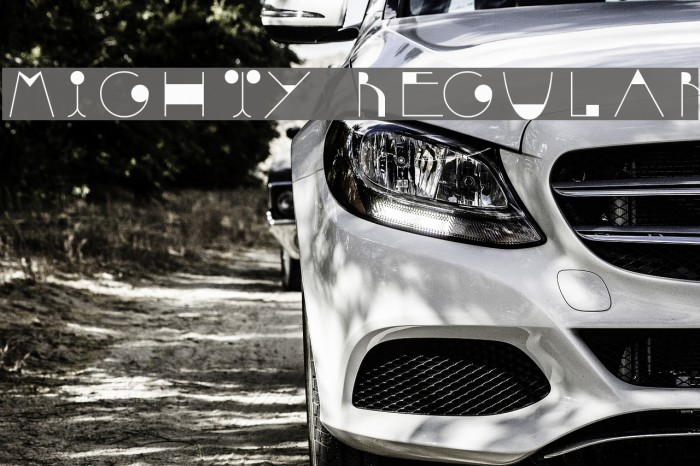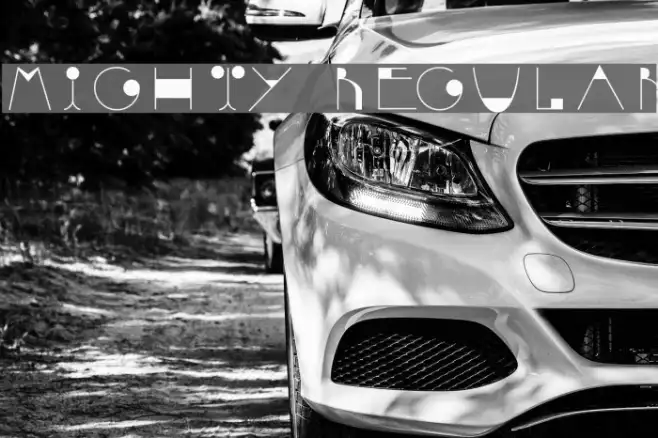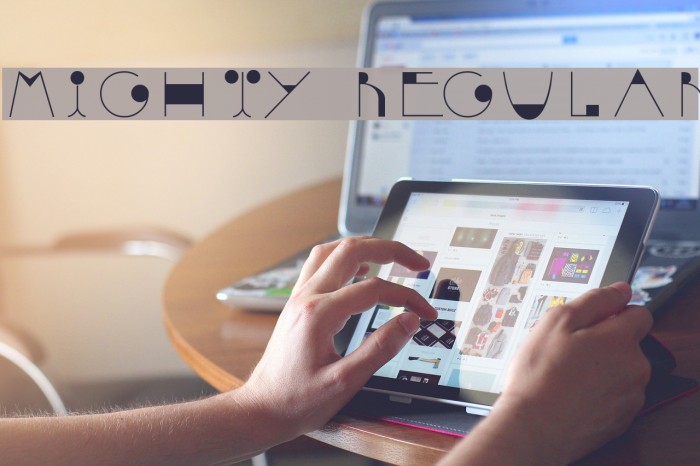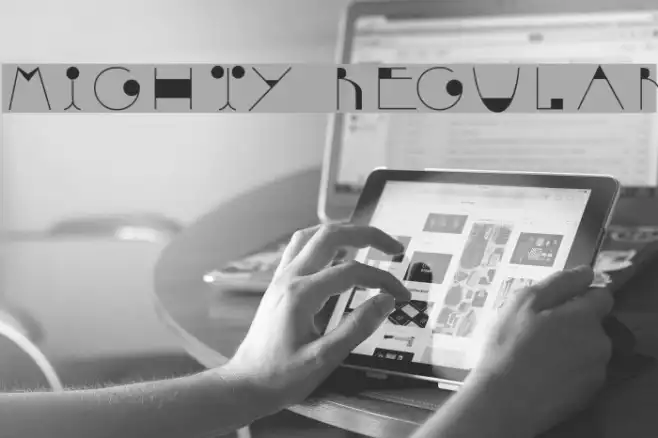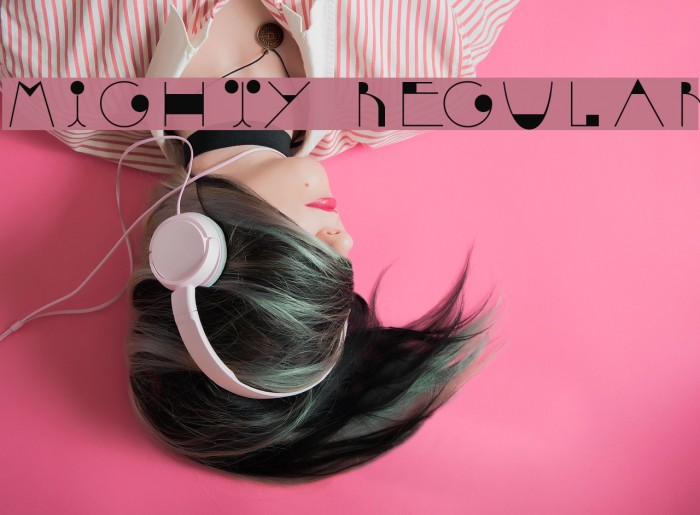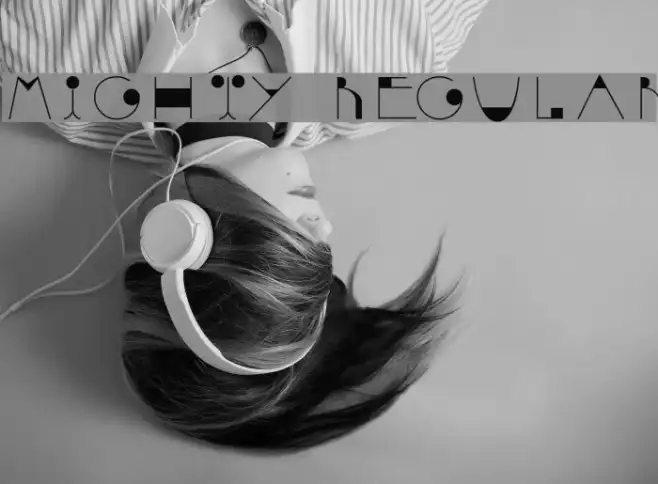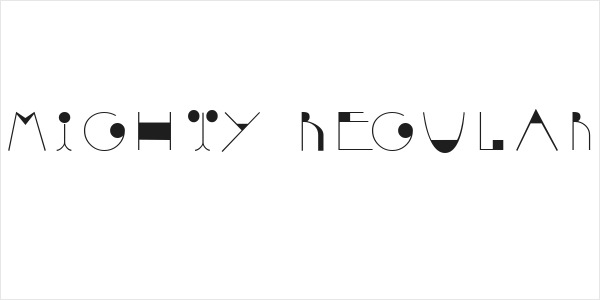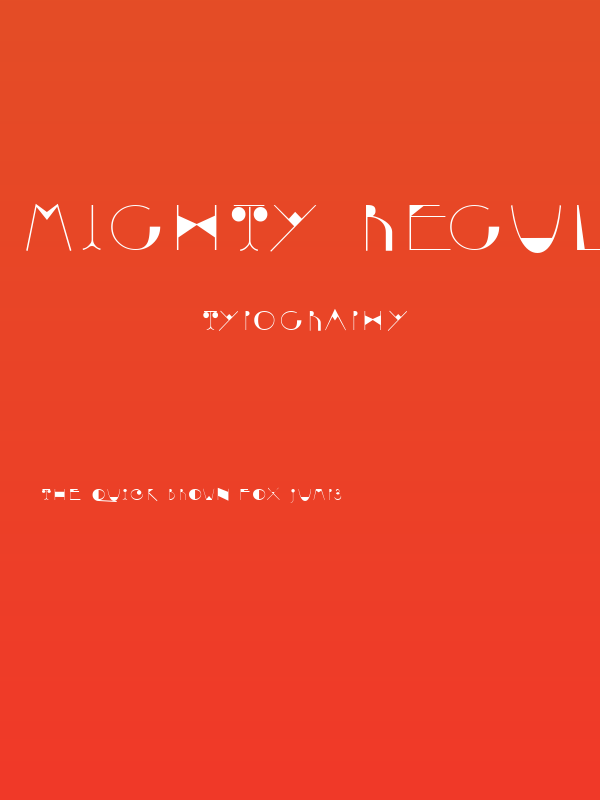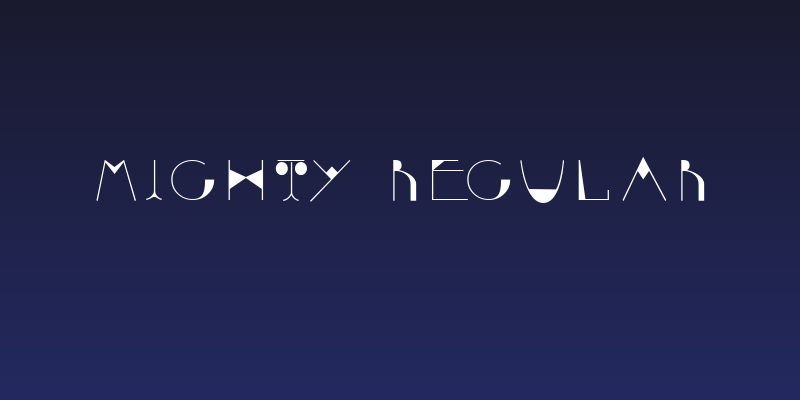
Mighty Regular Font
Mighty Regular Description
This font features a unique and artistic design, characterized by geometric shapes and abstract forms. The uppercase letters are bold and striking, with a mix of sharp angles and smooth curves. The lowercase letters maintain a consistent style, offering a playful yet sophisticated look. The numbers and special characters follow the same geometric theme, ensuring a cohesive appearance across all characters. This font stands out with its decorative elements, making it ideal for creative and modern design projects.
| Proposed Projects | Ideal for branding, posters, album covers, and modern art projects. |